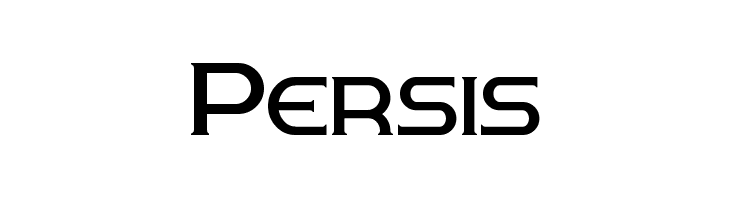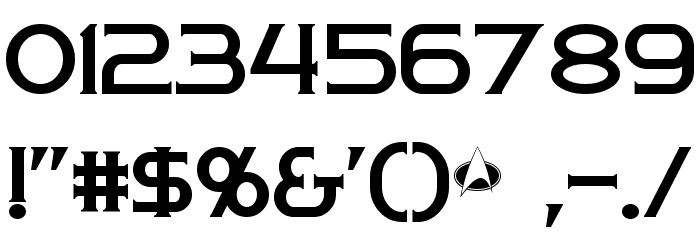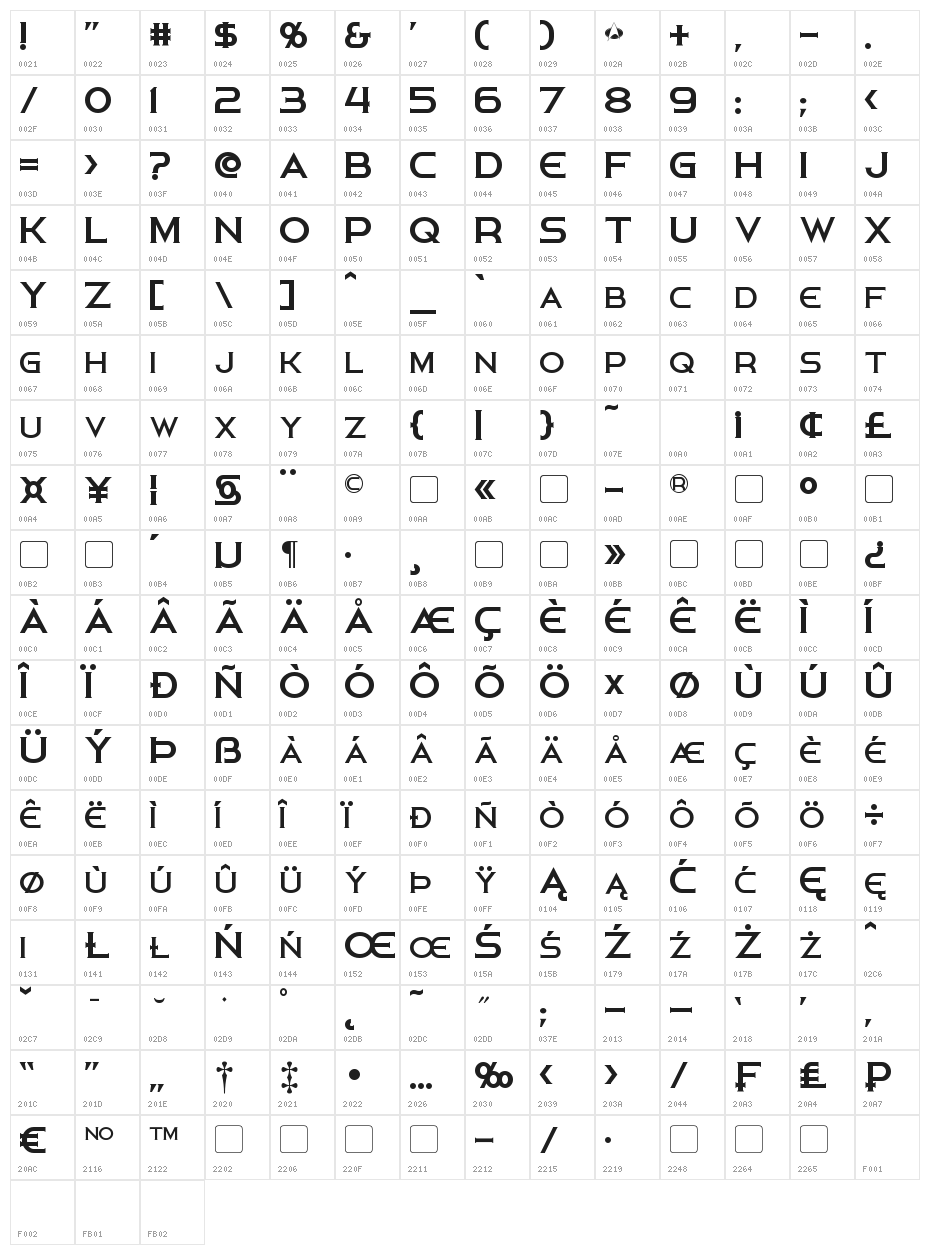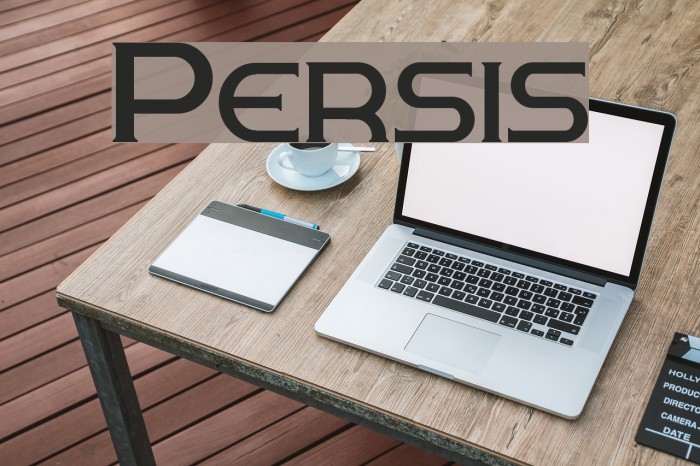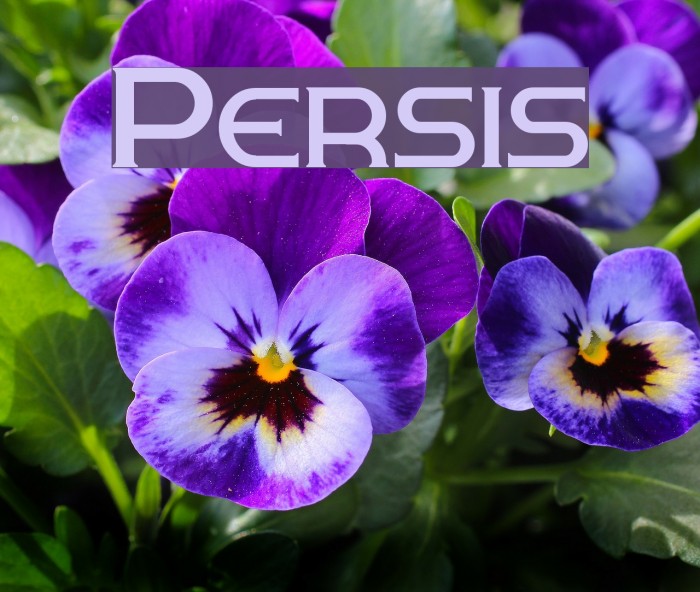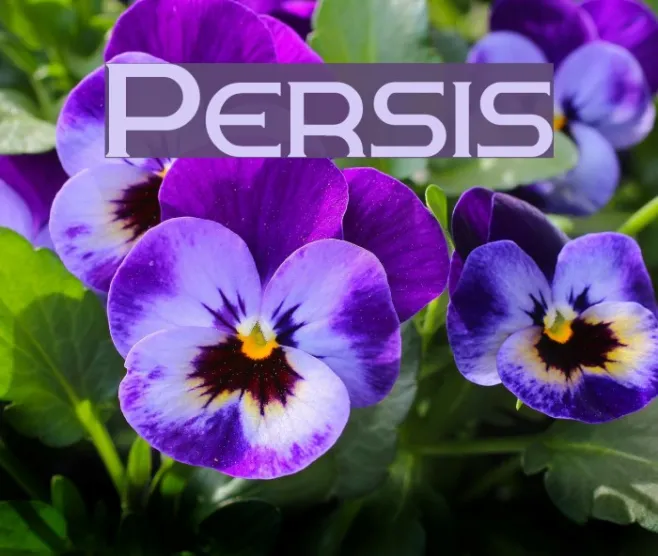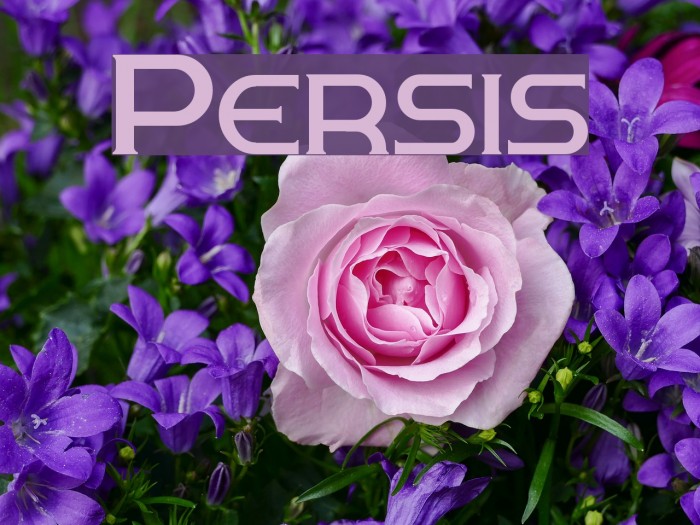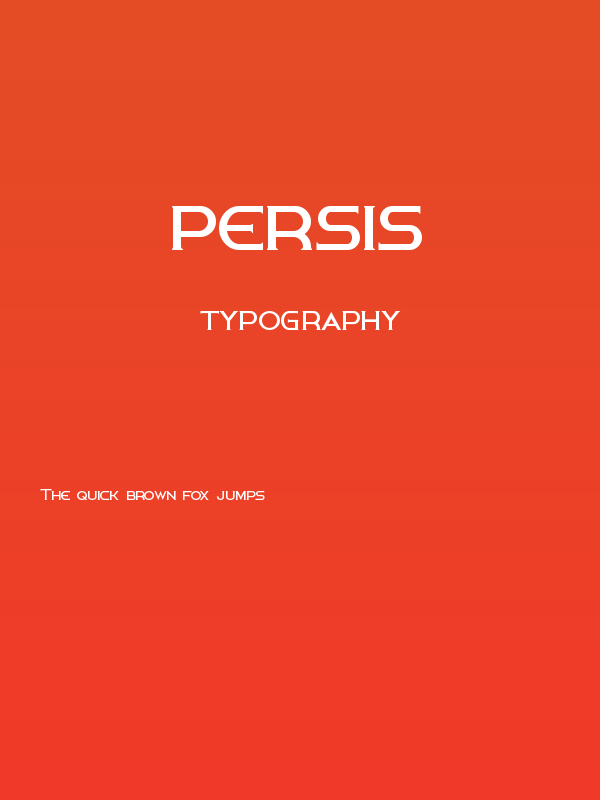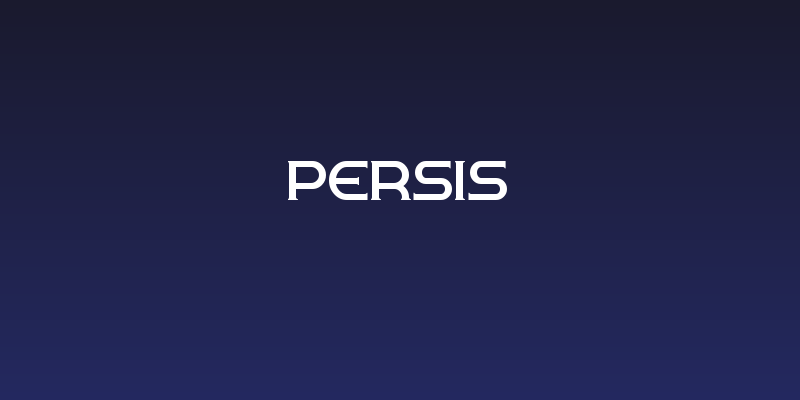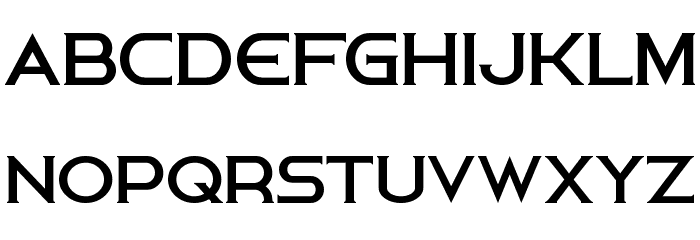
Persis Font
Persis Description
This font features a futuristic and geometric design, characterized by its bold and angular letterforms. The uppercase and lowercase letters share a consistent style, with sharp edges and a uniform stroke width that gives it a modern and sleek appearance. The numerals are equally bold, maintaining the geometric theme with distinct, easily recognizable shapes. Special characters are designed to match the overall aesthetic, with unique and creative interpretations that add to the font's distinctive look. This font is ideal for projects that require a modern and cutting-edge feel, making it suitable for technology-related branding, sci-fi themed designs, or any creative work that aims to stand out with a bold statement.
Proposed ProjectsIdeal for technology branding, sci-fi designs, and creative projects needing a modern edge.